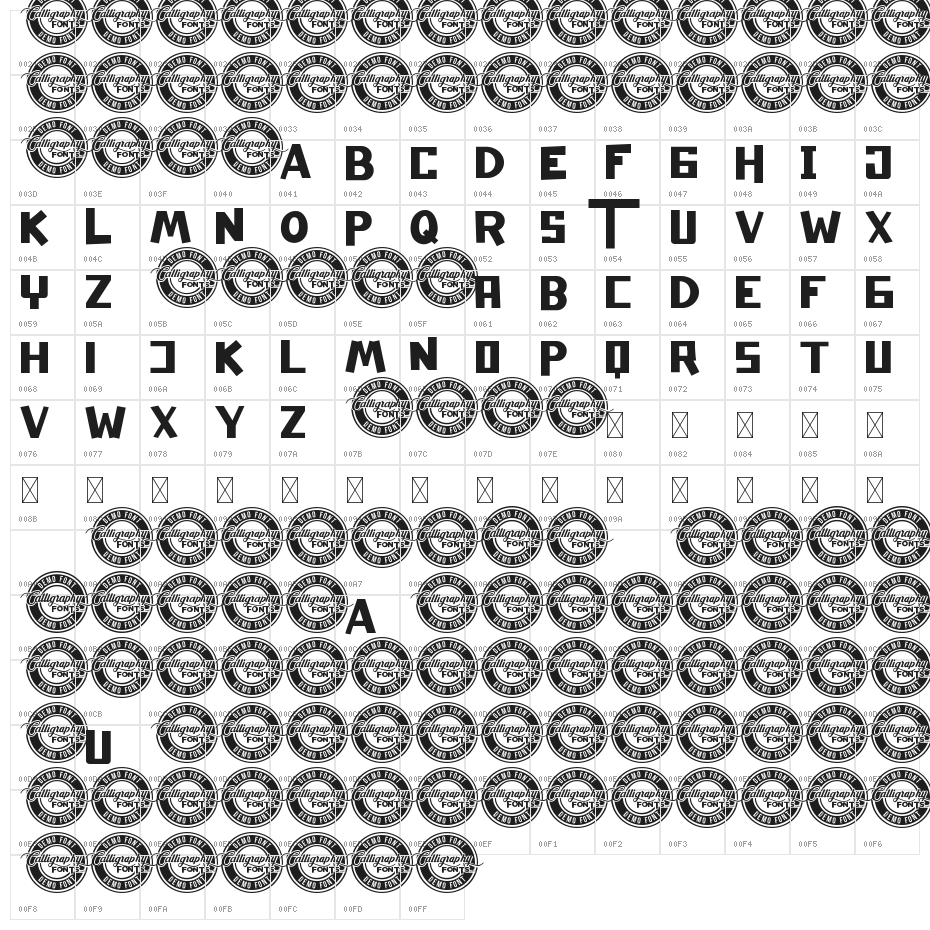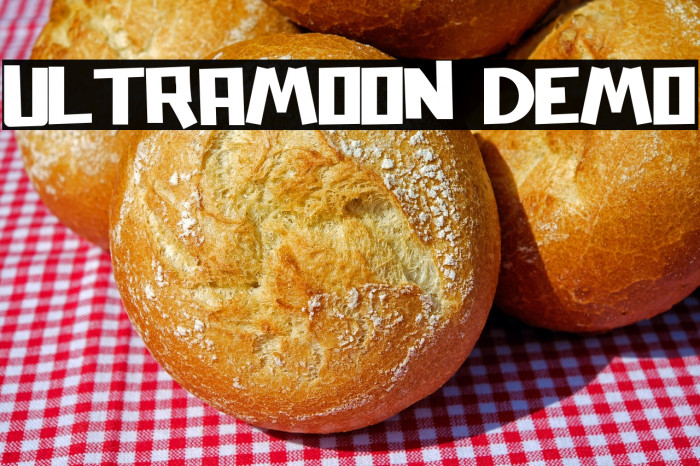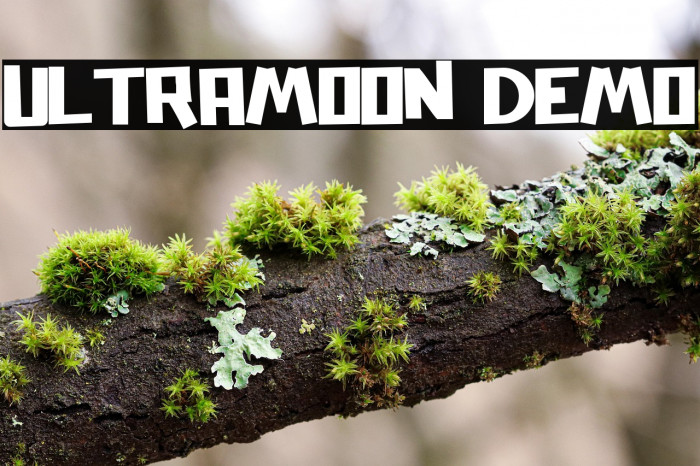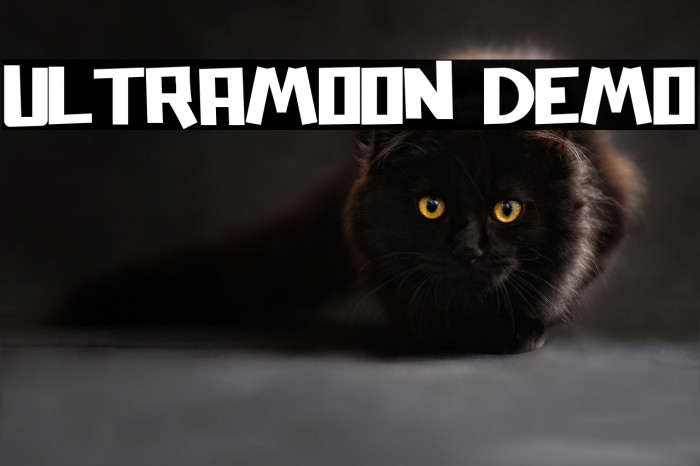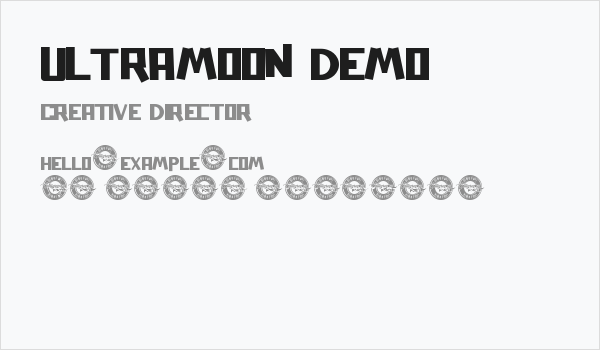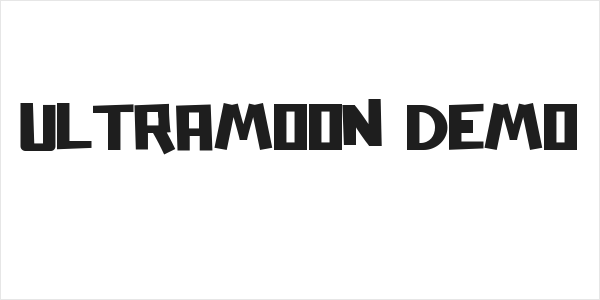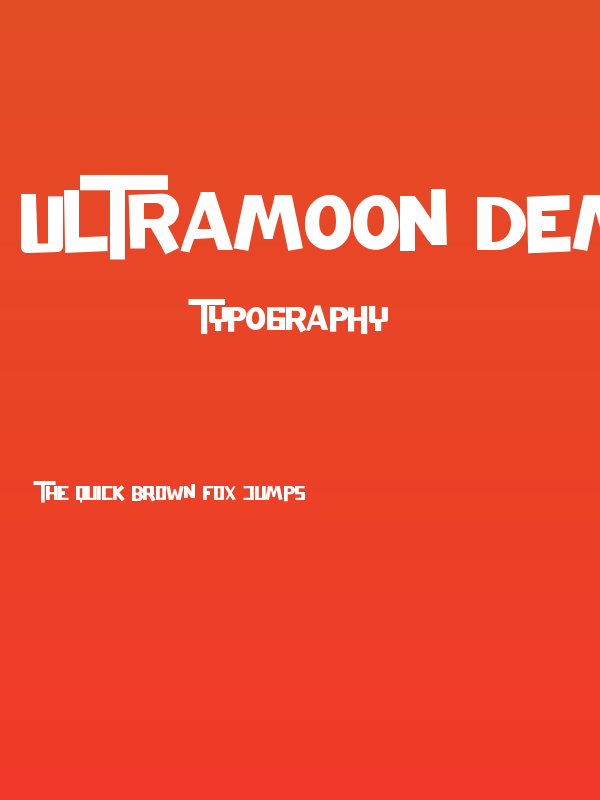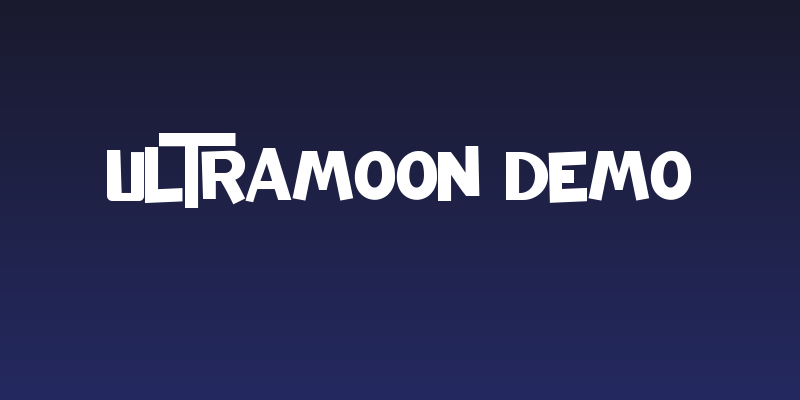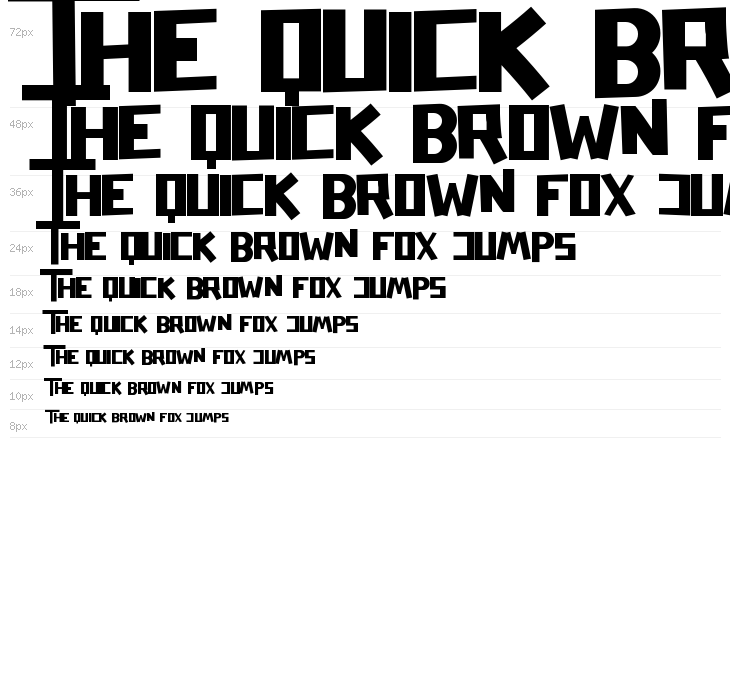
Ultramoon Demo Font
Ultramoon Demo Description
This font features a bold and dynamic style with a strong geometric influence. The uppercase letters are characterized by their angular shapes and thick strokes, creating a sense of power and modernity. The design incorporates unique elements, such as varying stroke widths and unexpected angles, which add a distinctive flair. The overall appearance is both futuristic and edgy, making it suitable for projects that require a standout, impactful look. The font's structure is consistent, with a uniform height and width across characters, ensuring readability while maintaining its bold aesthetic.
| Proposed Projects | Ideal for branding, posters, video game graphics, and any project needing a strong, modern typeface. |